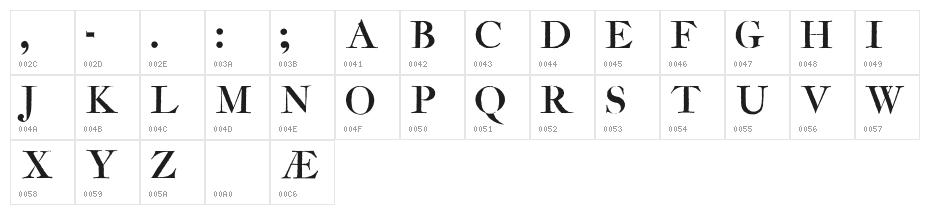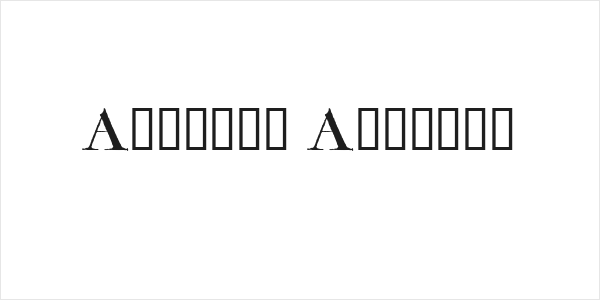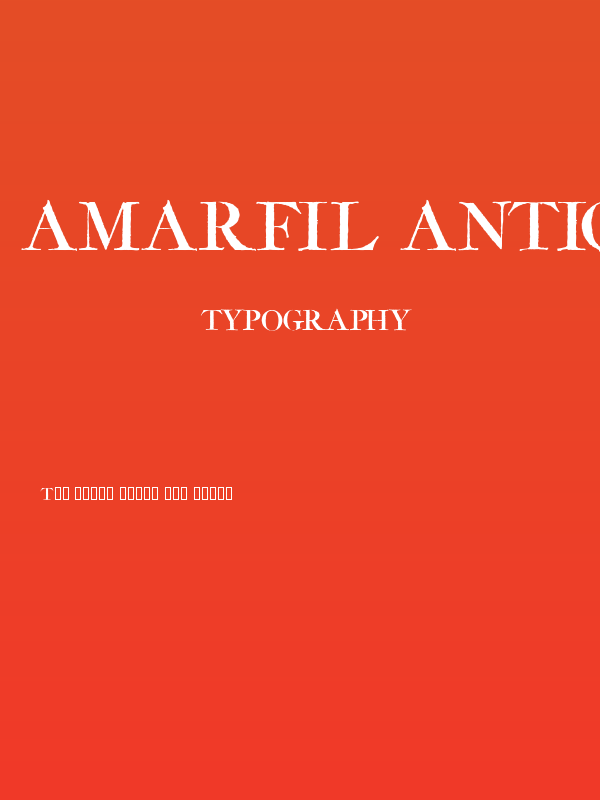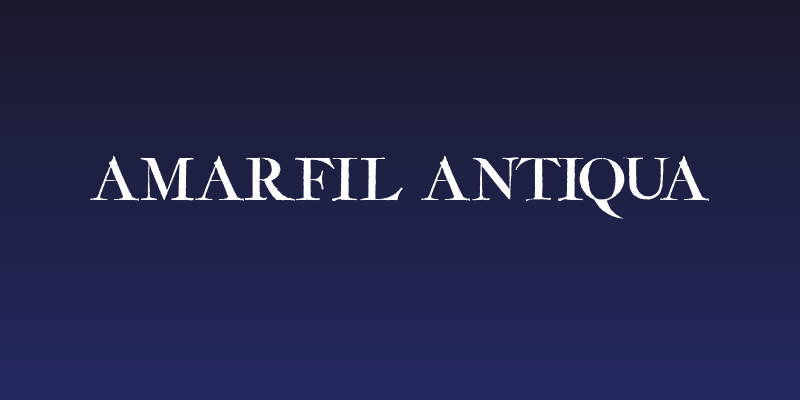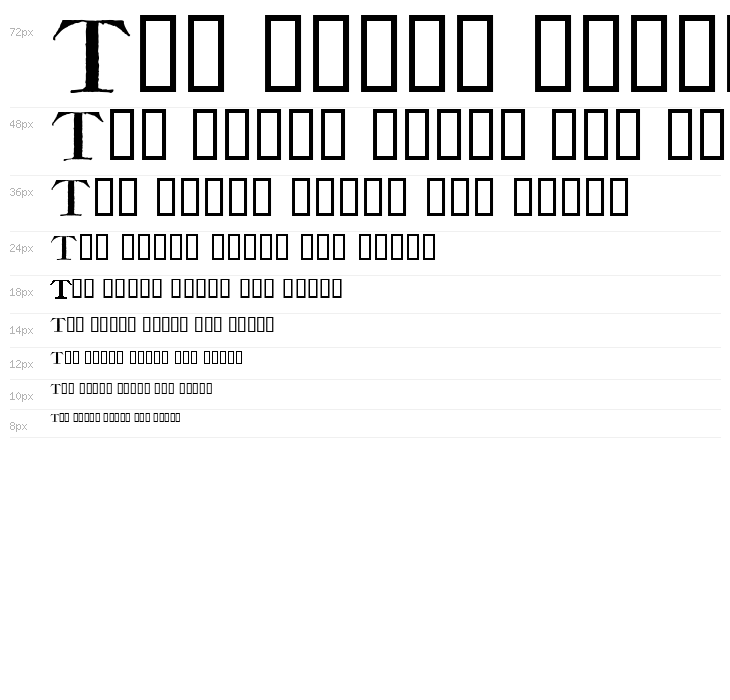
Amarfil Antiqua Font
Amarfil Antiqua Description
This font features a classic and elegant design with a strong emphasis on serif elements. The uppercase letters exhibit a traditional style with sharp serifs and a slight contrast in stroke thickness, giving it a refined and sophisticated appearance. The overall design is reminiscent of historical typefaces, with a modern twist that makes it suitable for contemporary use. The characters are well-proportioned, and the serifs add a touch of formality and grace. This font is ideal for projects that require a touch of elegance and tradition.
| Proposed Projects | Ideal for book covers, formal invitations, branding for luxury products, and editorial design. |